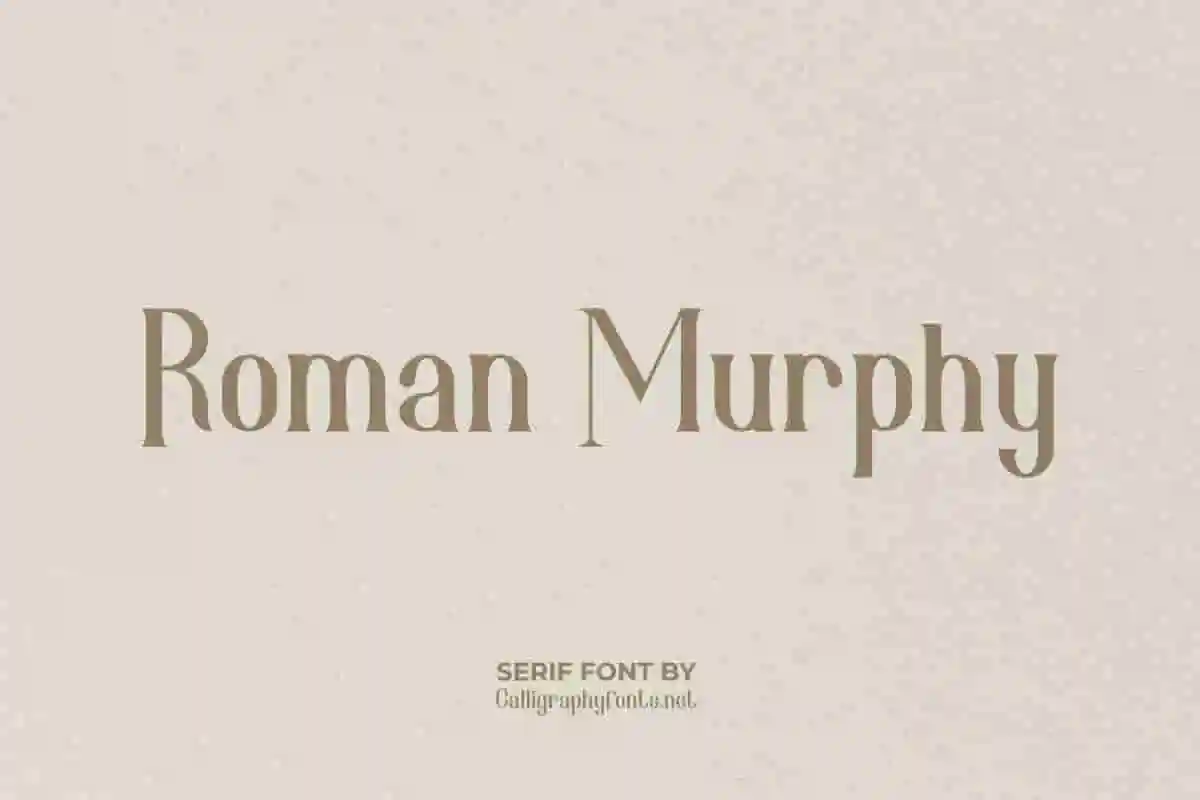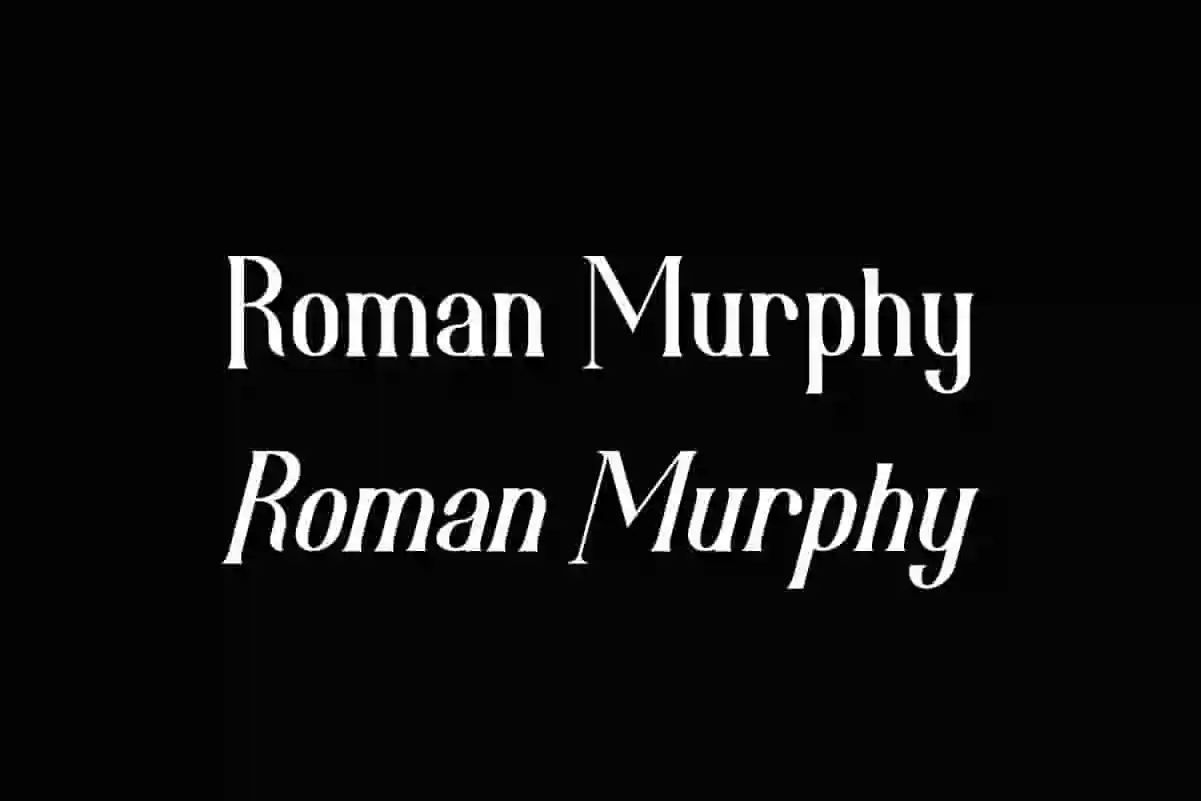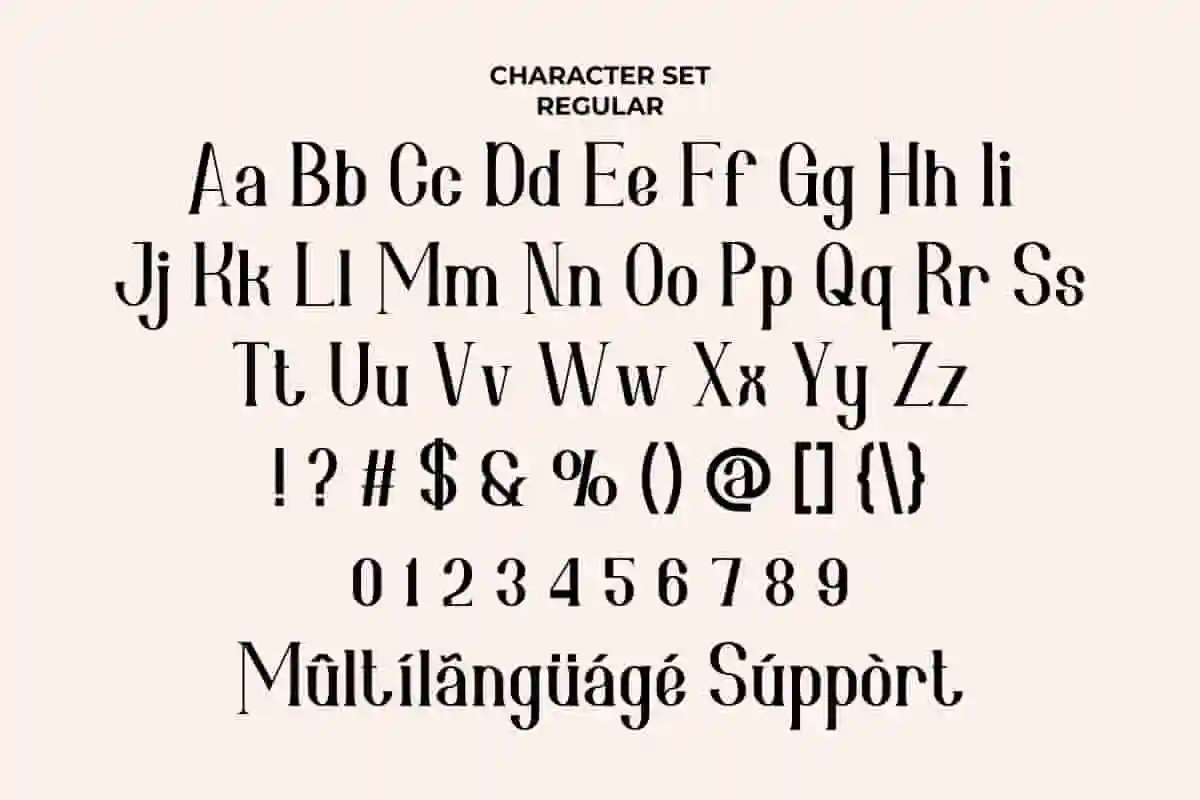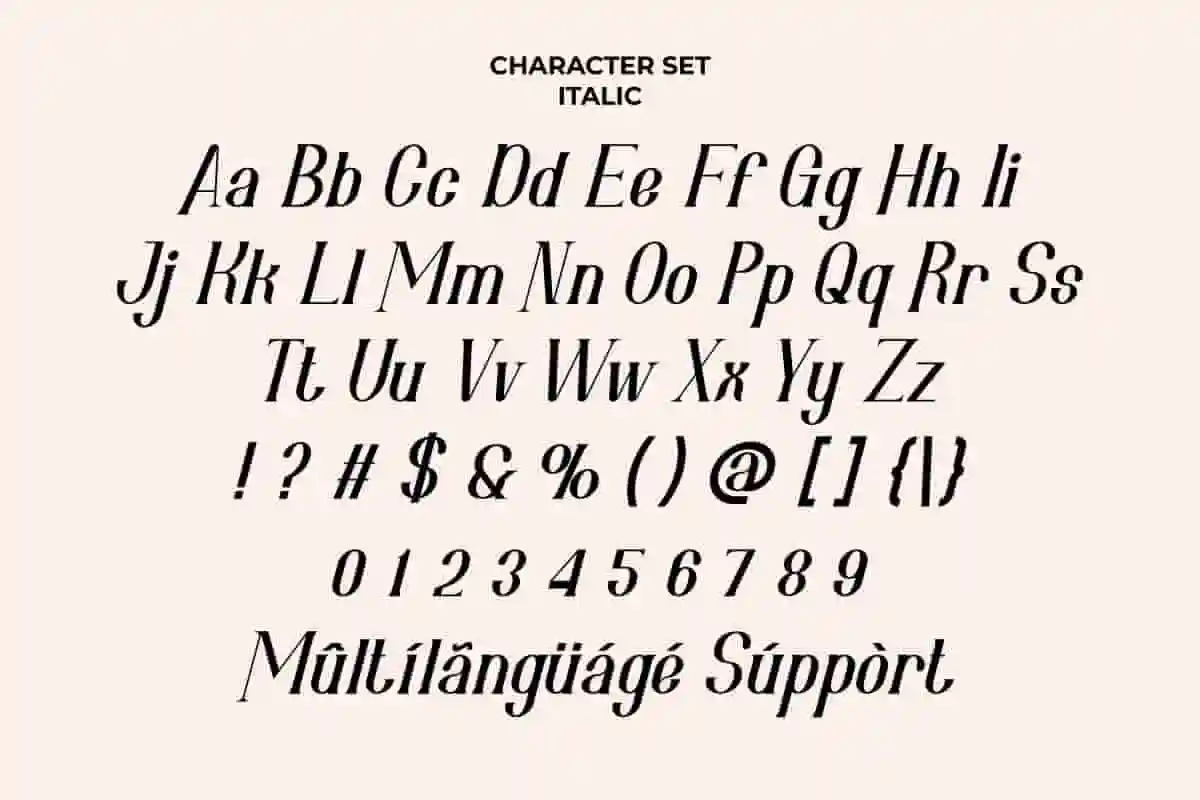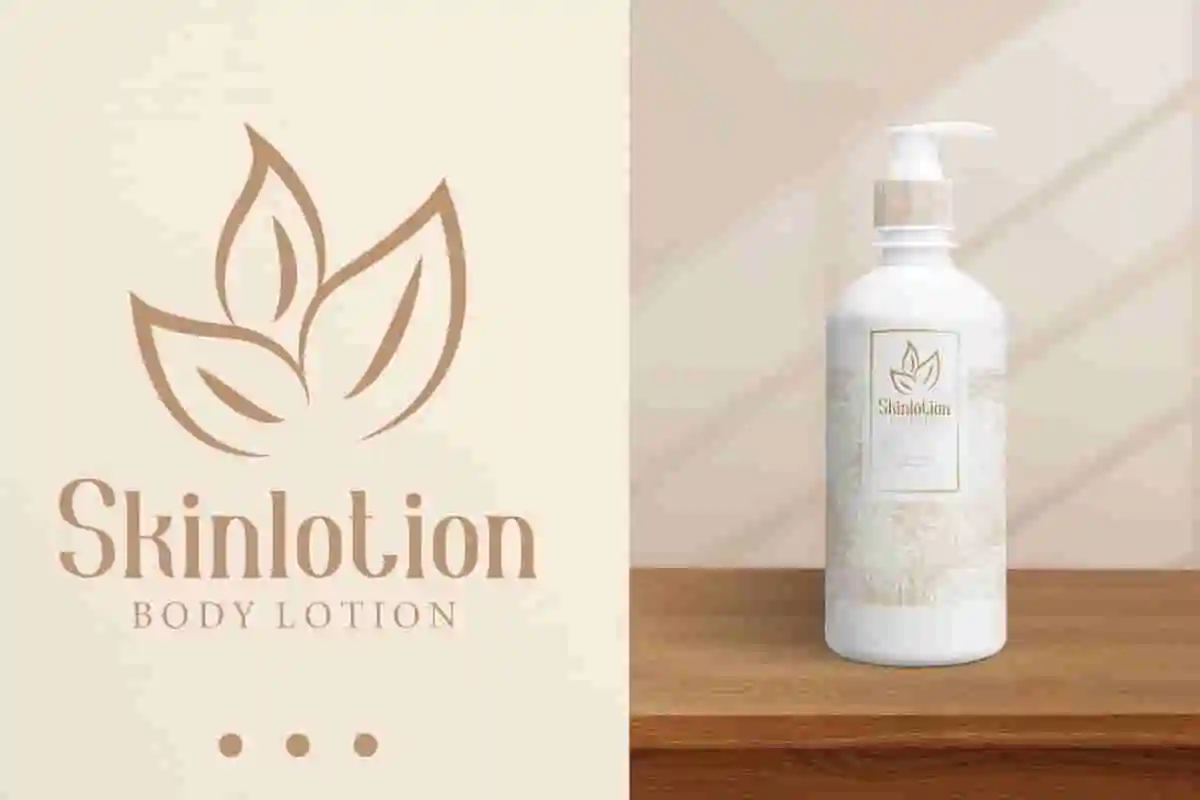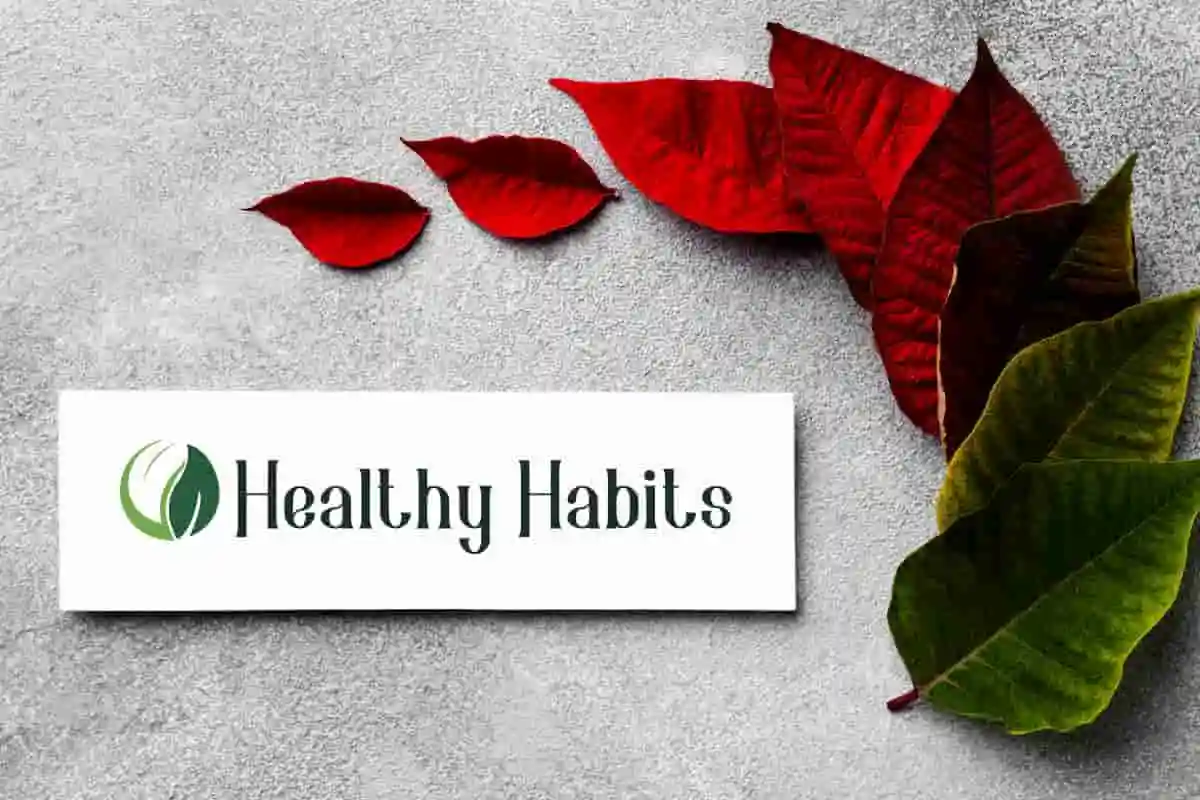
Roman Murphy Sans Serif Font
Roman Murphy Font is a stylish serif font by CalligraphyFonts.net. The font has a classic, luxurious, and sophisticated style. Download Roman Murphy Font for commercial use now!
Roman Murphy Font is Sans serif font family with luxurious and stylish style. The characteristics of the font also classic and sophisticated. The font will be awesome for logo, brandings, headlines, signage etc. Roman Murphy Font come with two styles : Regular and Italic.
Step into a world where tradition meets innovation with Roman Murphy Sans Serif Font. Designed for creators who value clean lines, balanced proportions, and versatile elegance, this font delivers both sophistication and clarity in every letter.
The Roman Murphy Sans Serif Font is the ultimate choice for branding, editorial design, advertising, and digital media. Its smooth curves and strong structure make it adaptable for a wide range of projects—whether you’re crafting an impactful logo, designing a sleek website header, or creating marketing materials that stand out.
One of its greatest strengths lies in its readability. From large-format prints to small digital screens, Roman Murphy ensures your message is communicated with clarity and style.
Roman Murphy Sans Serif Font is a modern, versatile, and stylish typeface designed to elevate your creative projects with timeless elegance. Crafted with clean lines and balanced proportions, this font combines contemporary minimalism with a subtle touch of classic sophistication.
- Elegant and minimalist